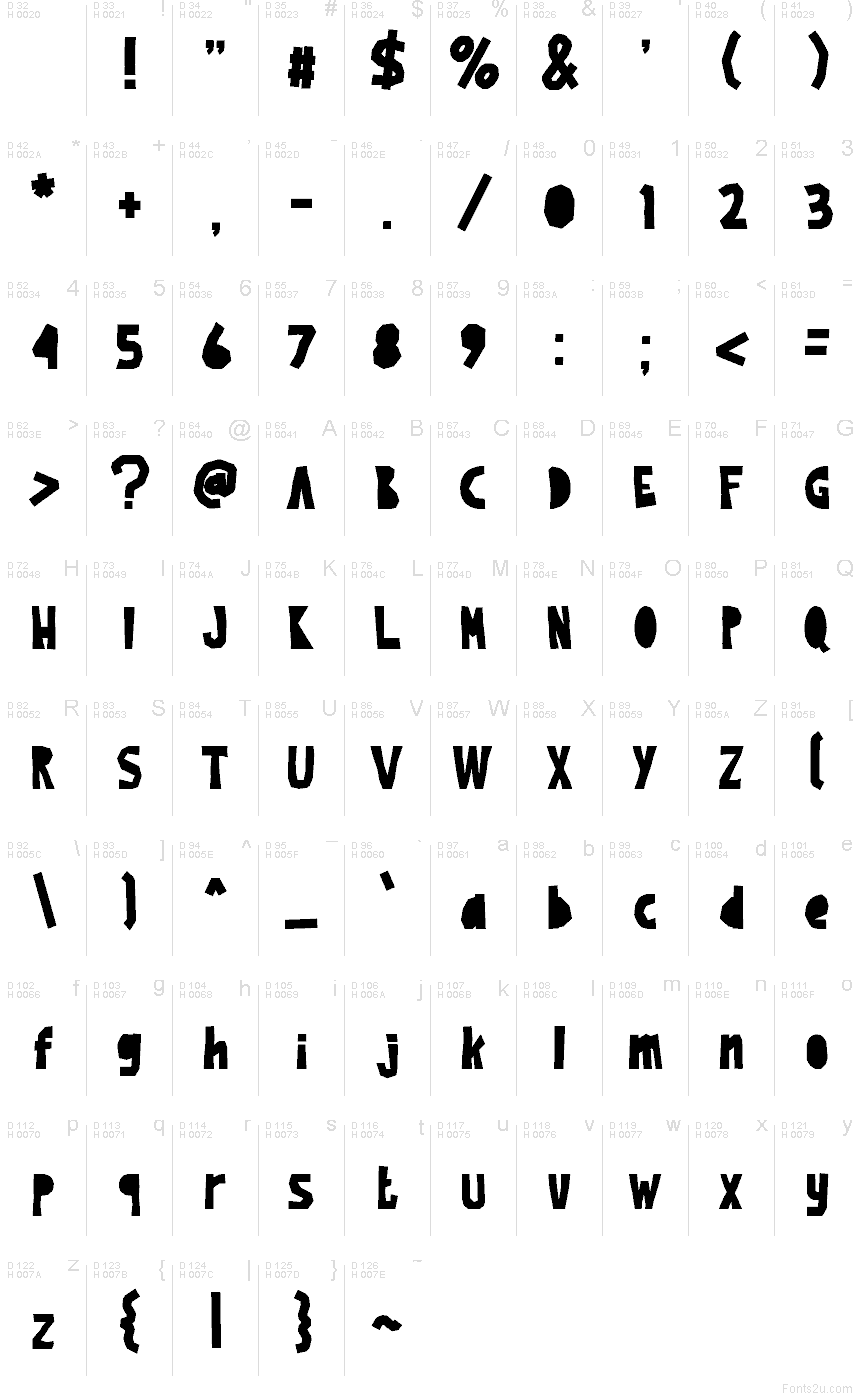
Tornadoz
Tornadoz font by Tokokoo Studio is a free cartoon display typeface that hits like a gust of wild, inky wind. Each letter feels hacked from black paper with sharp, zigzag cuts, giving words a restless, swirling energy. The chunky forms stay bold and readable, but the jagged edges and uneven rhythm make everything look like it’s caught in motion, perfect when you want text to shout, not whisper.
Using Tornadoz, your titles instantly gain that chaotic, animated vibe that grabs kids and grown-ups alike. This free font shines on comic book covers, game logos, YouTube thumbnails, kids’ event posters, toy packaging, and spooky party invites. Keep it big and bold for maximum impact, then pair it with a clean, simple sans serif for body text so Tornadoz can do the loud, stormy talking.